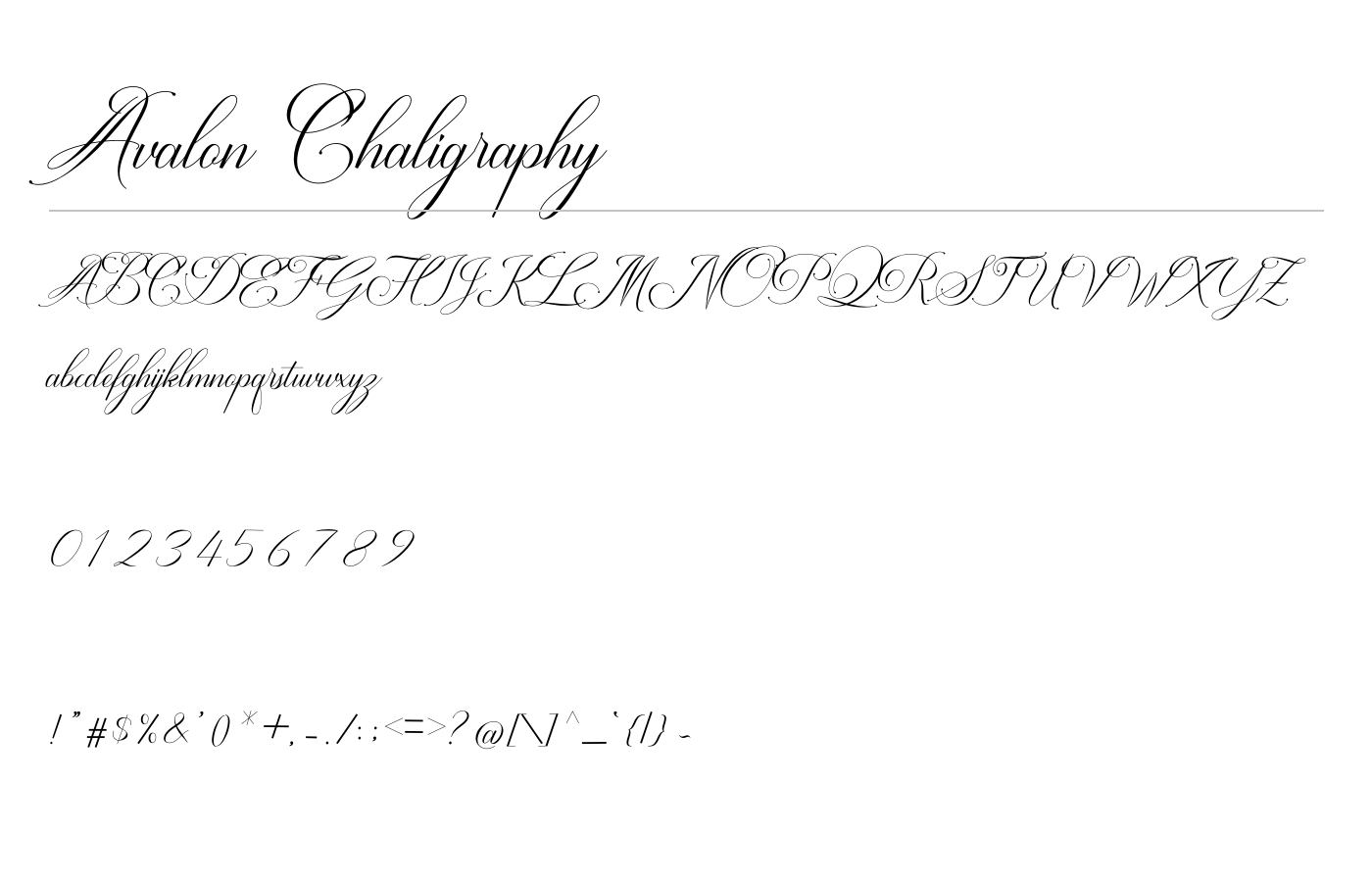
Avalon Calligraphy is an elegant, thin script font characterized by its delicate, flowing strokes and graceful swashes, embodying traditional calligraphic style. Its high contrast and finely detailed letterforms with elaborate uppercase characters make it perfect for luxury branding, wedding invitations, and sophisticated editorial designs where a refined and classic look is desired. This font shines in headlines and decorative uses, imparting a sense of timeless beauty and elegance.
Avalon Chaligraphy Font
About Avalon Chaligraphy Font
| Font family | Avalon Chaligraphy Font |
| Designer | Typeline Studio 2020 |